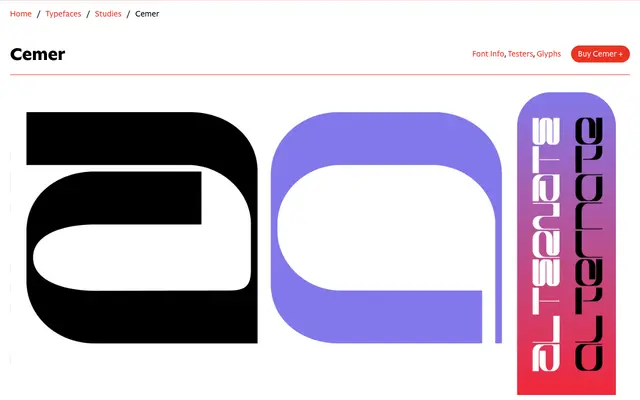
Cemer
CAST · Michele Galluzzo · 2020
A geometric monospaced unicase face drawn from the 1960s logo of a Salentine ceramic tile company, with alternate letterforms built on a grid of thick horizontal and thin vertical strokes.
Derived from research into the visual identity of Cemer of Calimera, a short-lived southern Italian tile manufacturer, Michele Galluzzo's typeface translates a self-taught graphic designer's logo into a full unicase character set. Each letter exists in two versions, alternates toggling within the strict modular grid that also shaped the original tiles. Though the construction looks purely geometric, it originated in calligraphic experiments with a broad nib held at 90° to the baseline.
A geometric monospaced unicase display face derived from calligraphic experiments at 90° nib angle, producing a strict grid of thick horizontal and thin vertical strokes that gives it a distinct modular character beyond conventional sans categories.